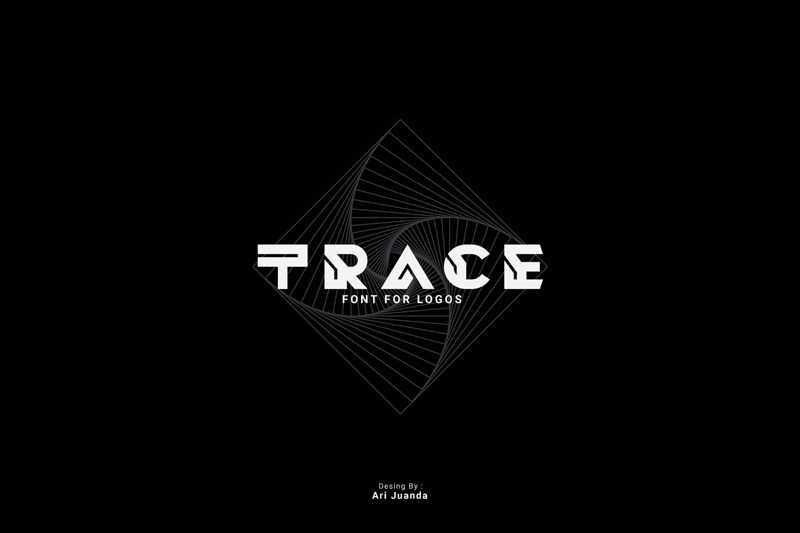
Trace Regular
Trace, the bold and expanded display font by Linecreative, takes you on a journey back to the retro era. Its captivating vintage aesthetics make it perfect for projects that aim to evoke nostalgia or celebrate the charm of yesteryears. Use Trace to create eye-catching headlines, posters, and advertisements that demand attention. With its distinctive style and bold weight, this font is ideal for retro-themed branding campaigns, album covers, or even creating unique packaging designs that stand out on the shelves. Let Trace transport your audience to a bygone era with its timeless appeal and versatile usage possibilities.